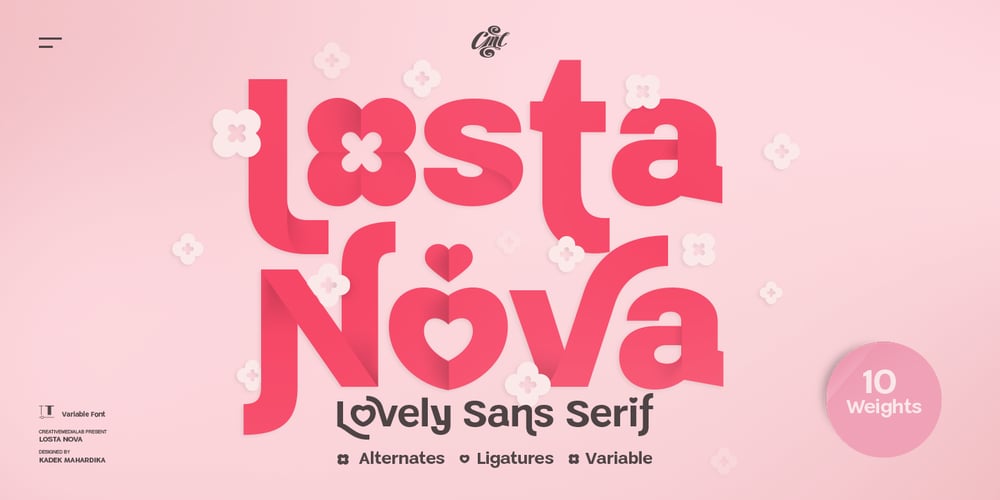
Losta Nova Font Family was designed by Kadek Mahardika and published by Creativemedialab. Losta Nova contains 11 styles and family package options. Minimal and modern sans serif consists of 10 weights from hairline to black as well as variable versions. Works great for branding, fashion, modern, and casual valentine design theme.Designing a logo is made easy with lots of alternates to play with.